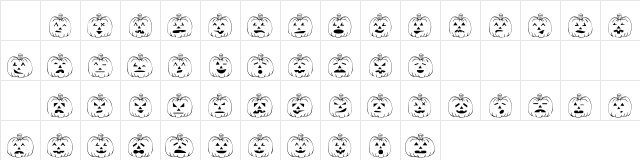
Complete 101! JackZ 2 Regular glyph index. Displaying only characters natively supported by 101! JackZ 2 Regular font.
101! JackZ 2 is a composed and adaptable typeface that performs quietly and consistently across a wide range of design contexts.